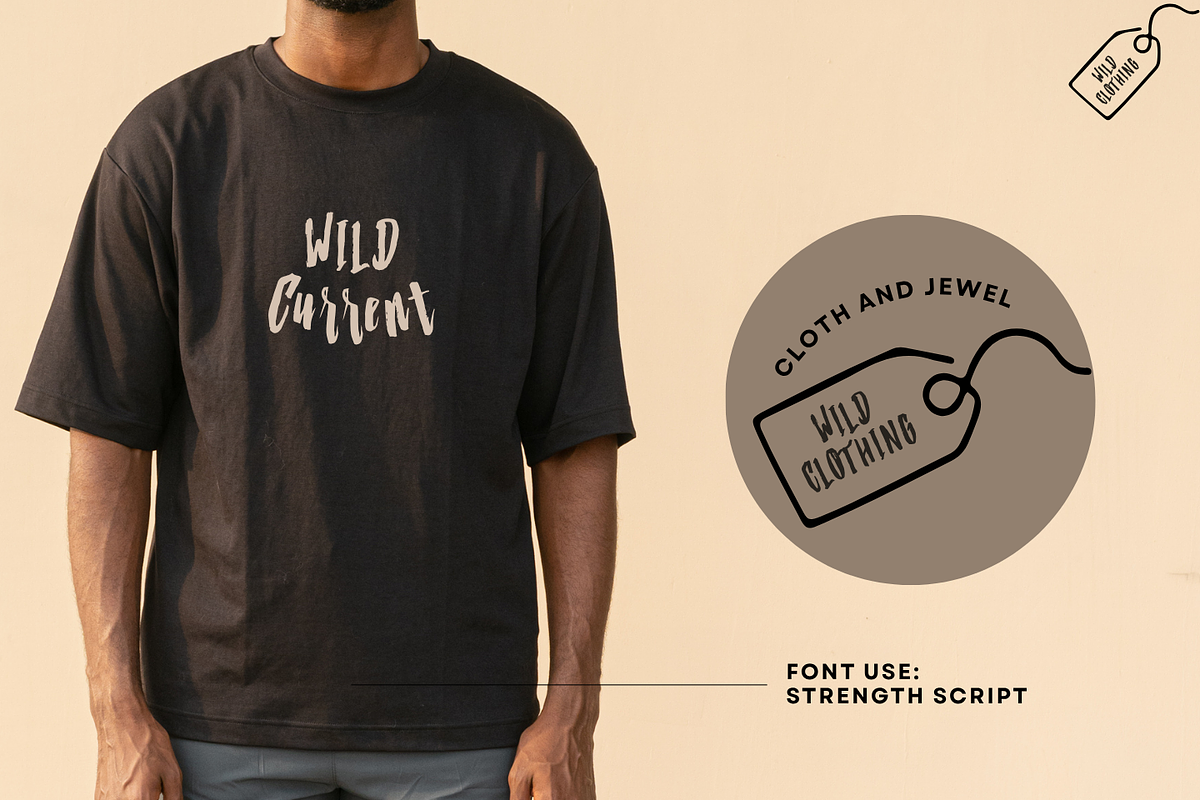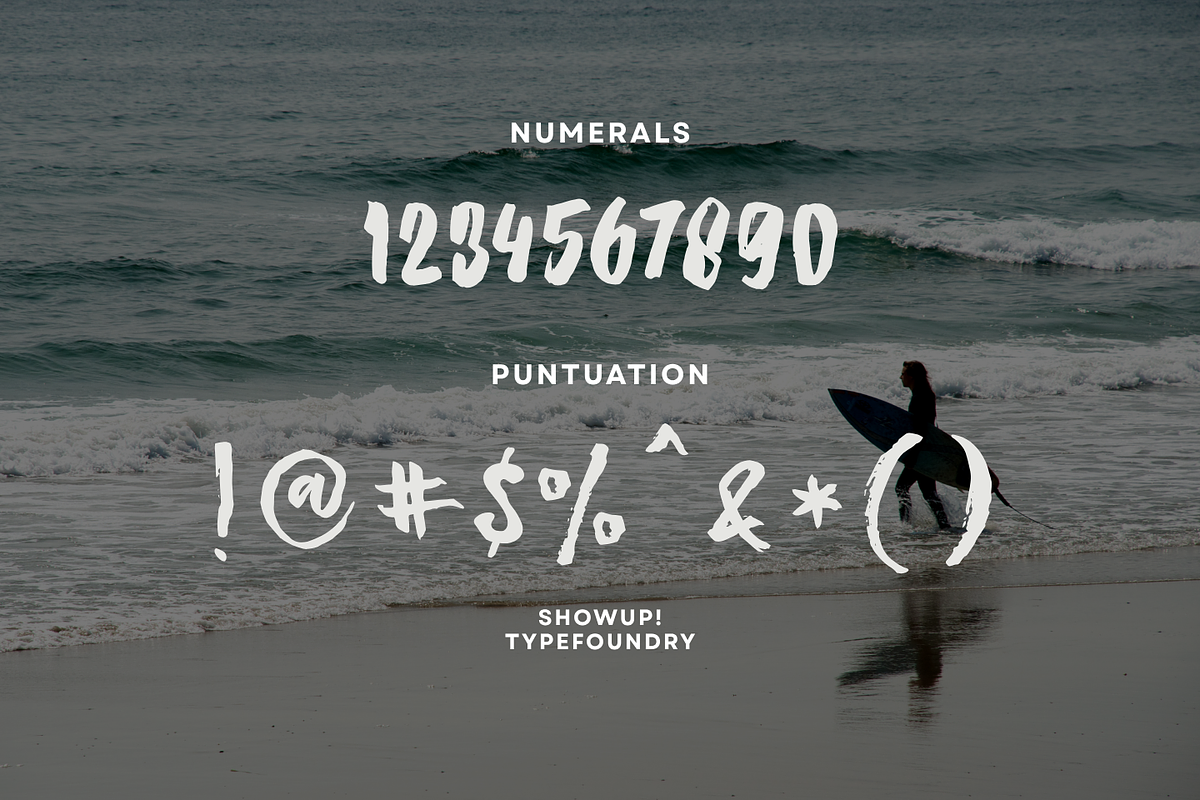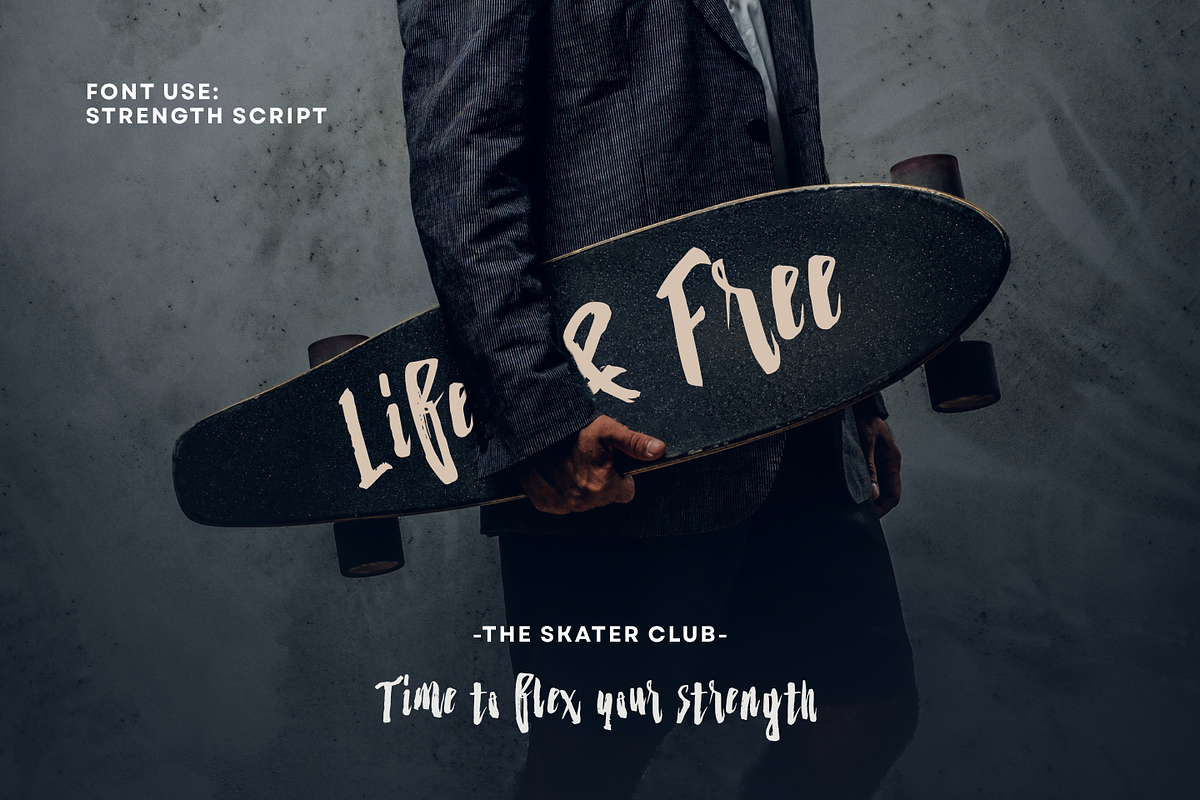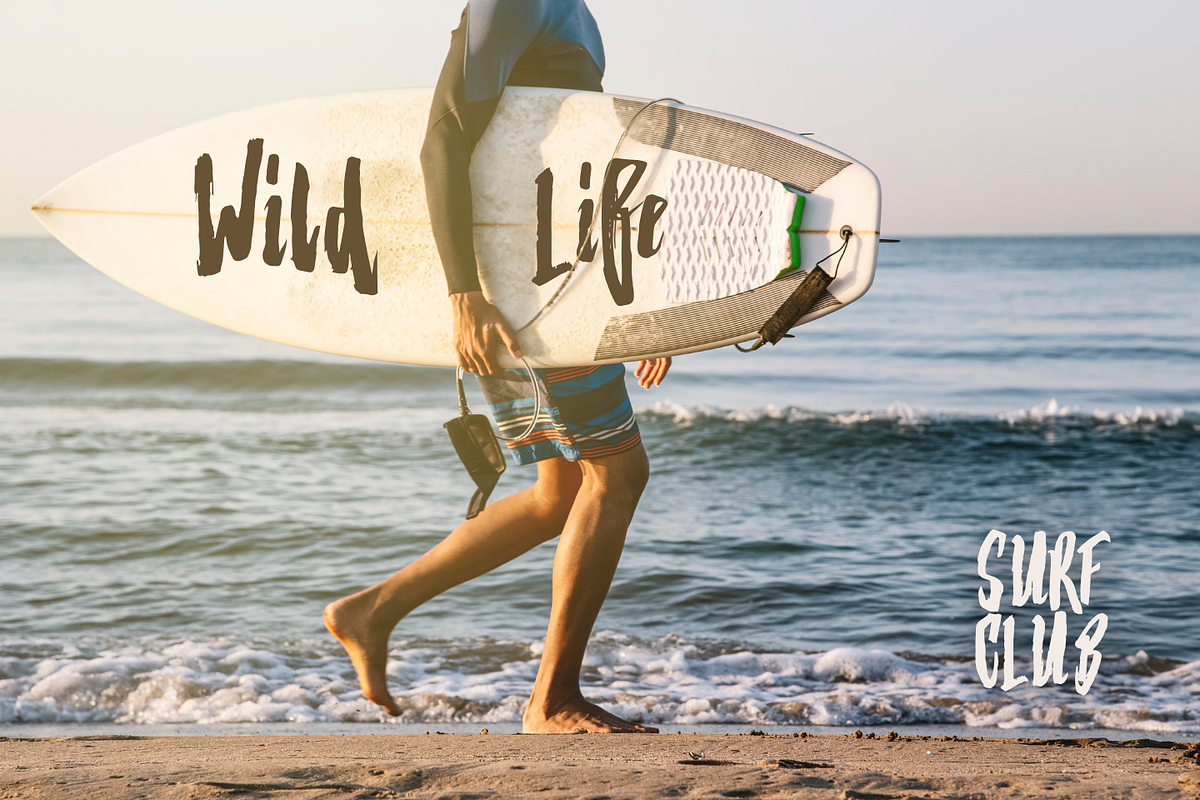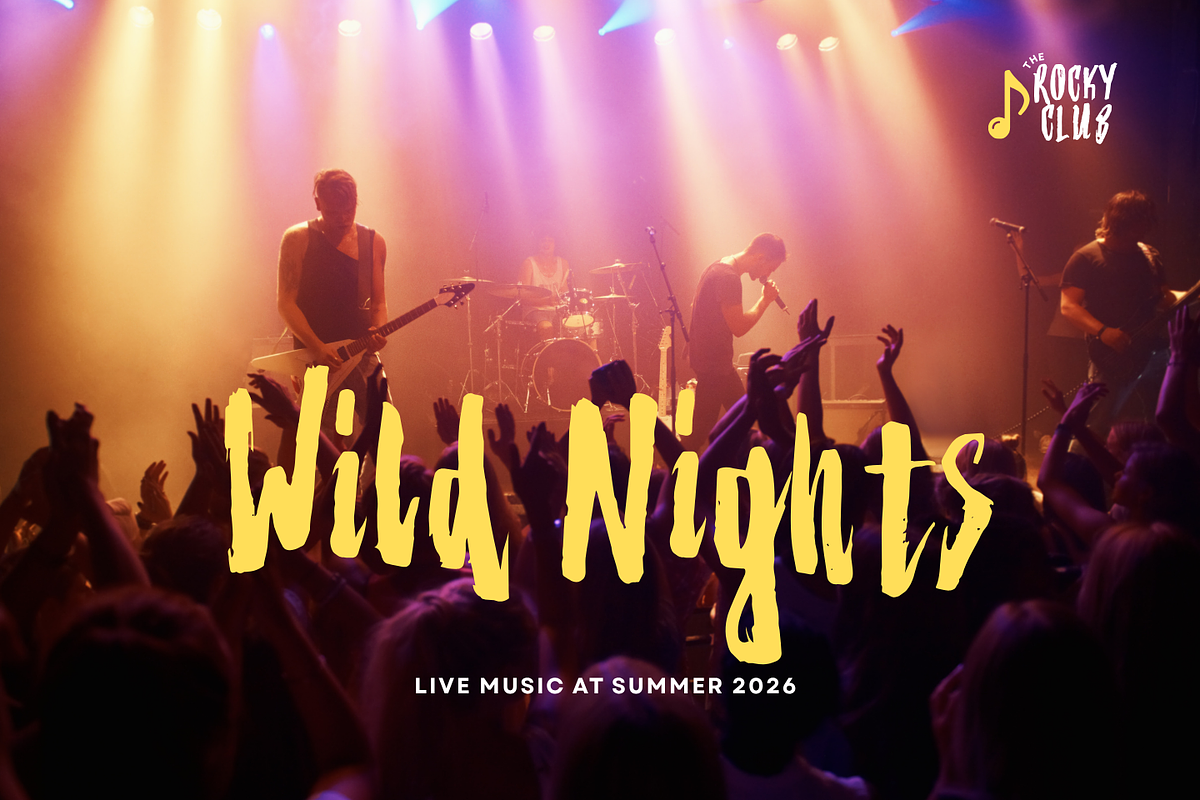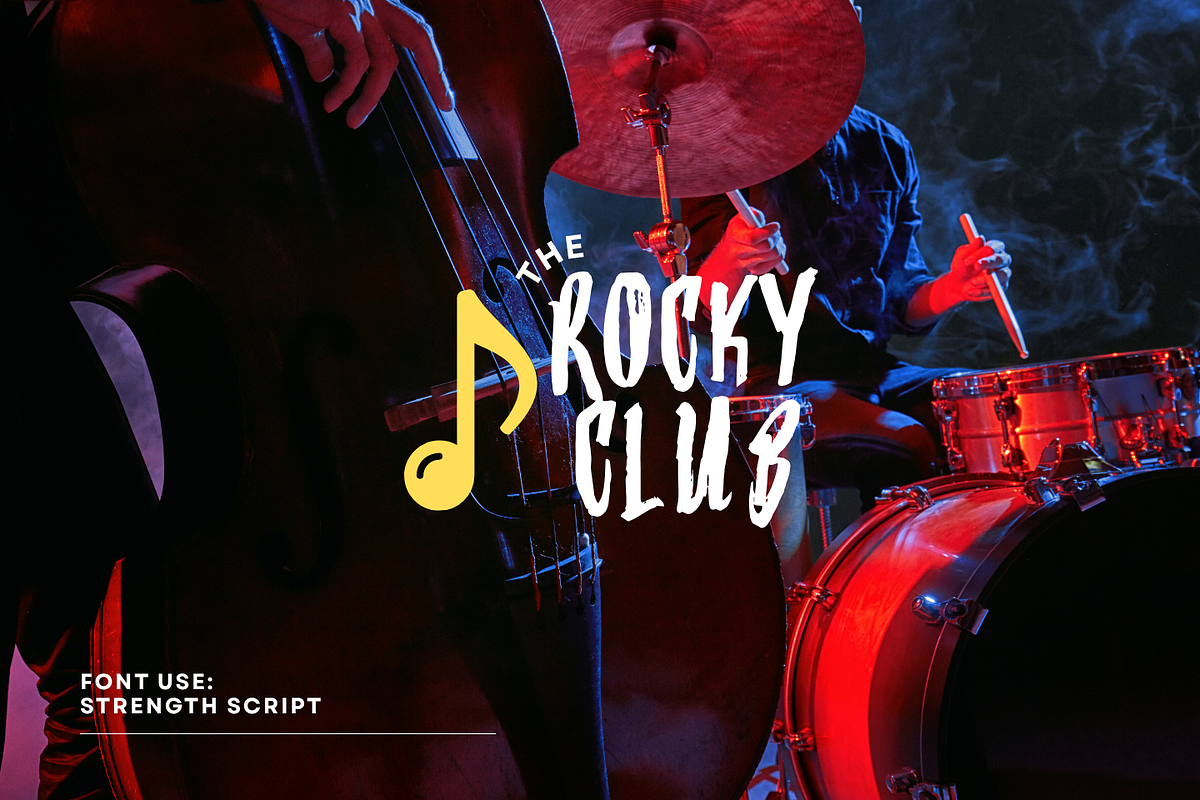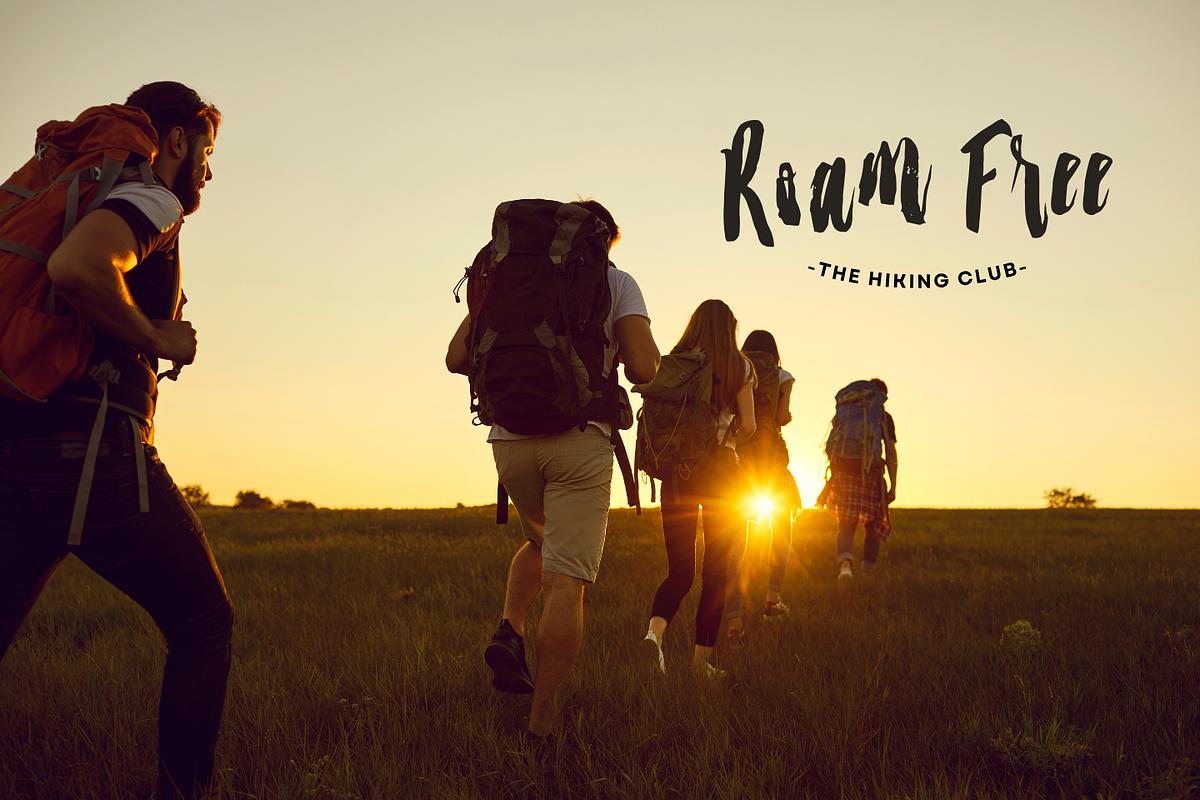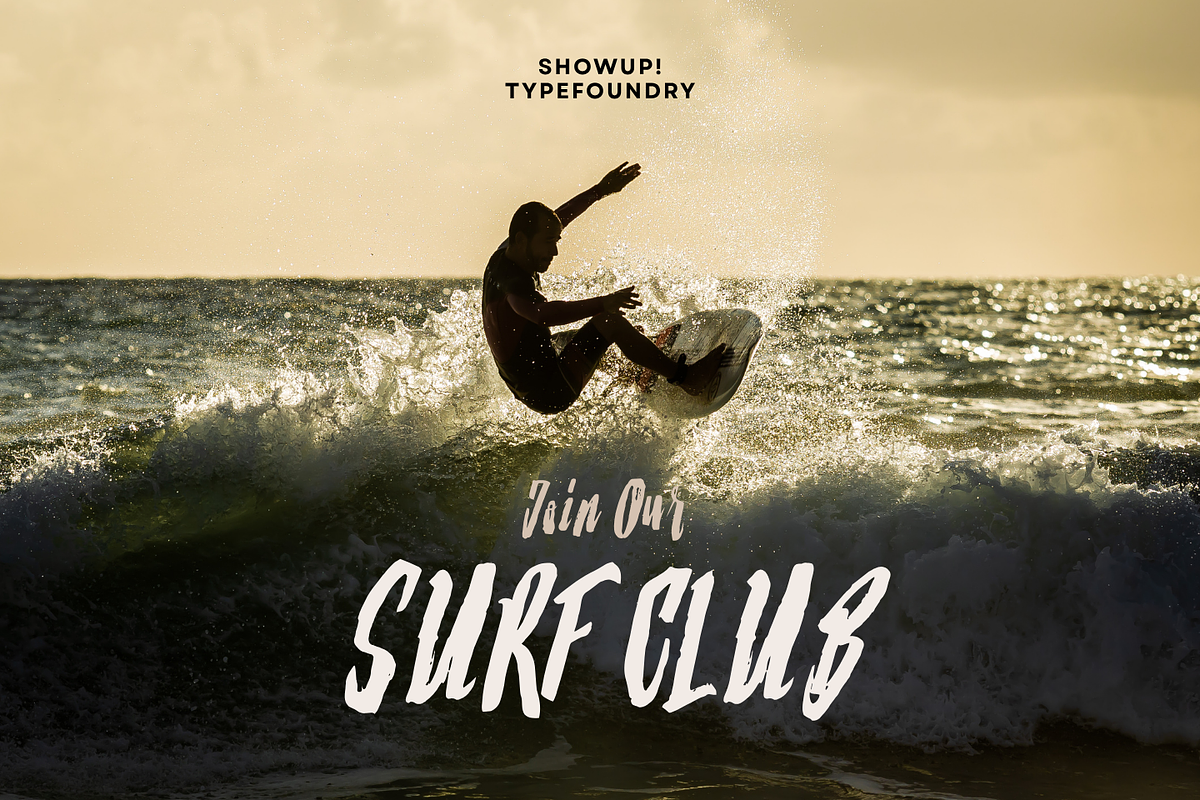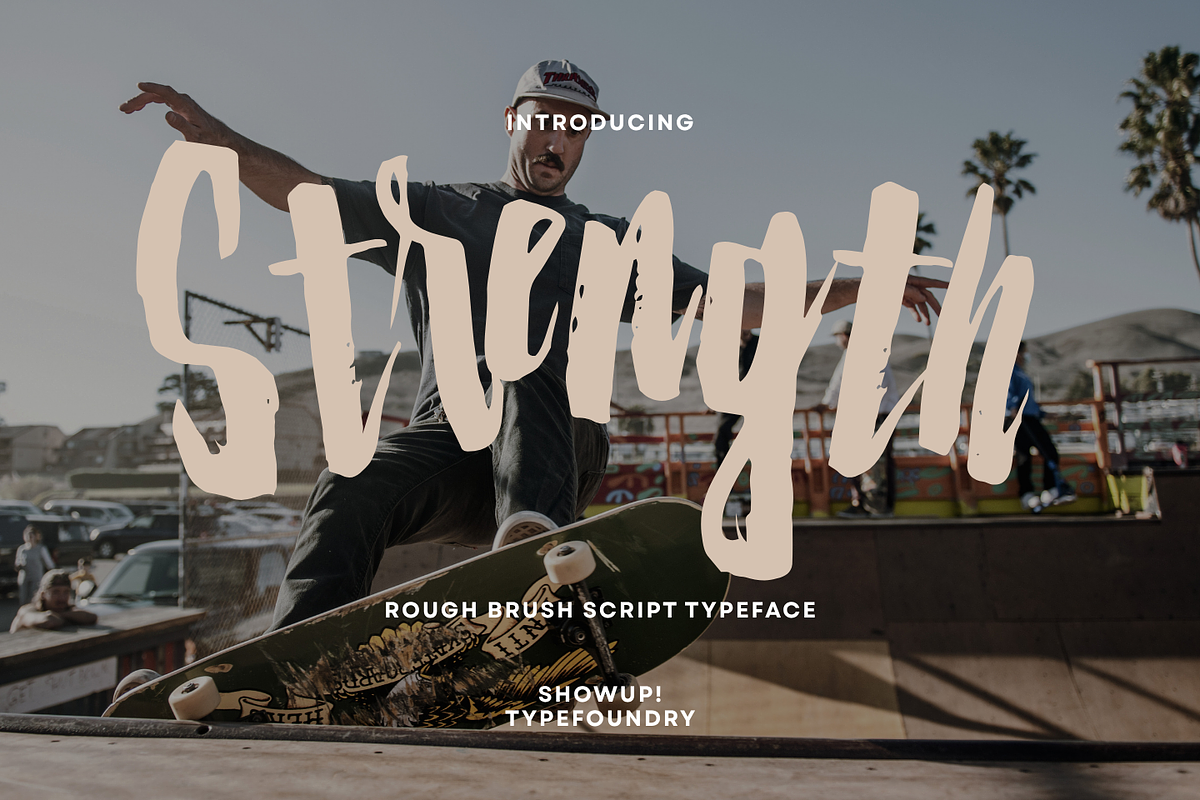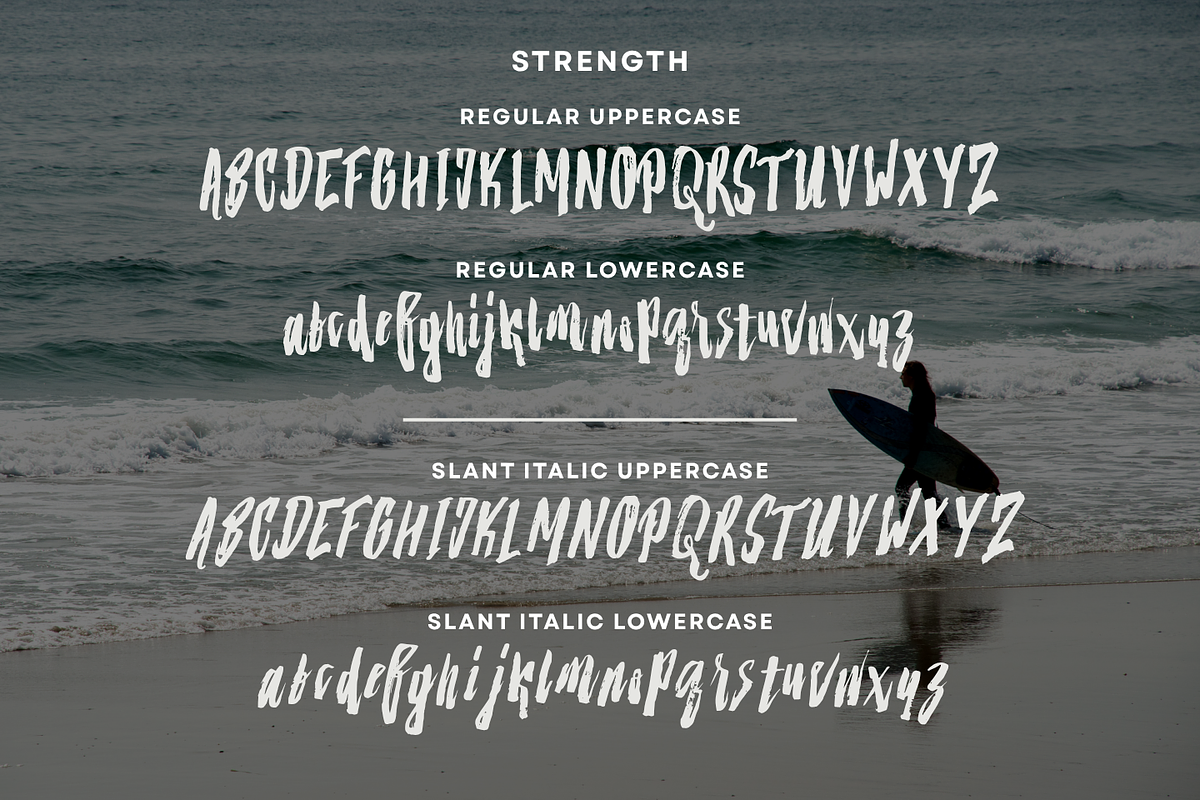
Strenght Script
Strength – Bold Brush Script Font
Introducing Strength, a bold handcrafted brush script designed to bring energy, confidence, and authentic personality to your creative projects. Inspired by natural brush strokes, Strength combines expressive lettering with excellent readability, making it perfect for impactful branding and eye-catching typography.
Whether you're creating a logo, apparel, poster, social media graphics, packaging, or promotional materials, Strength delivers a strong handcrafted aesthetic that instantly stands out.
Branding Projects
Apparel & T-Shirts
Posters
Business Cards
Invitations
Quotes
Advertising
Outdoor Branding
Regular Style
Slant Style
Natural Brush Texture
Strength is designed to create bold, expressive lettering with a handcrafted appearance. Its natural brush texture makes every word feel dynamic and full of character while remaining highly readable for both print and digital projects.